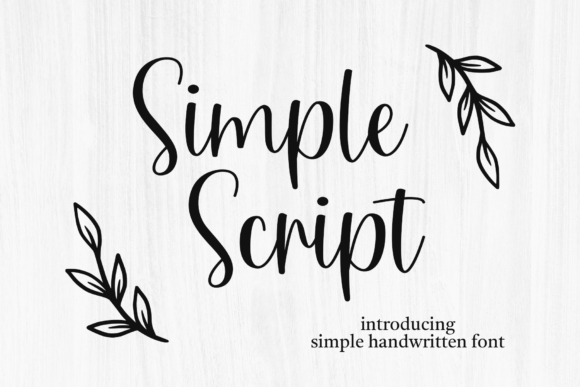
Introducing Simple Script Font - the epitome of elegance and sophistication in the world of script fonts. Created by the renowned Artkenza, this font will captivate your imagination with its chic and refined design.
With every stroke meticulously crafted, Simple Script Font effortlessly embodies grace and balance. The combination of thin and thick lines creates a delicate appearance that is sure to impress. The slightly slanted letters, reminiscent of calligraphy, add an extra layer of class and timelessness to your projects.
Simple Script Font is your secret weapon for adding a touch of glamour to any design endeavor. Whether you are creating stunning wedding invitations, establishing a unique brand identity, or curating eye-catching editorial layouts, this font will elevate your work to new heights.
Imagine the awe and admiration you will receive when your clients and audience are greeted with the sheer beauty of Simple Script Font. Its simplicity and style make it an indispensable addition to any designer's toolkit.
But let's not stop there - Simple Script Font has even more to offer. With its rich keyword profile as one of the Best Fonts for Web Design 2016, this font is optimized for online platforms. Enhance the visual appeal of your website and captivate your visitors with the allure of Simple Script Font.
This font is more than just a tool; it is a gateway to emotions. It evokes feelings of sophistication, refinement, and elegance, leaving a lasting impression on anyone who encounters it. It speaks volumes about your attention to detail and your commitment to delivering exceptional design.
In a world where first impressions matter, Simple Script Font ensures that your message is conveyed with the utmost style and impact. Say goodbye to ordinary and embrace the extraordinary with this captivating font.